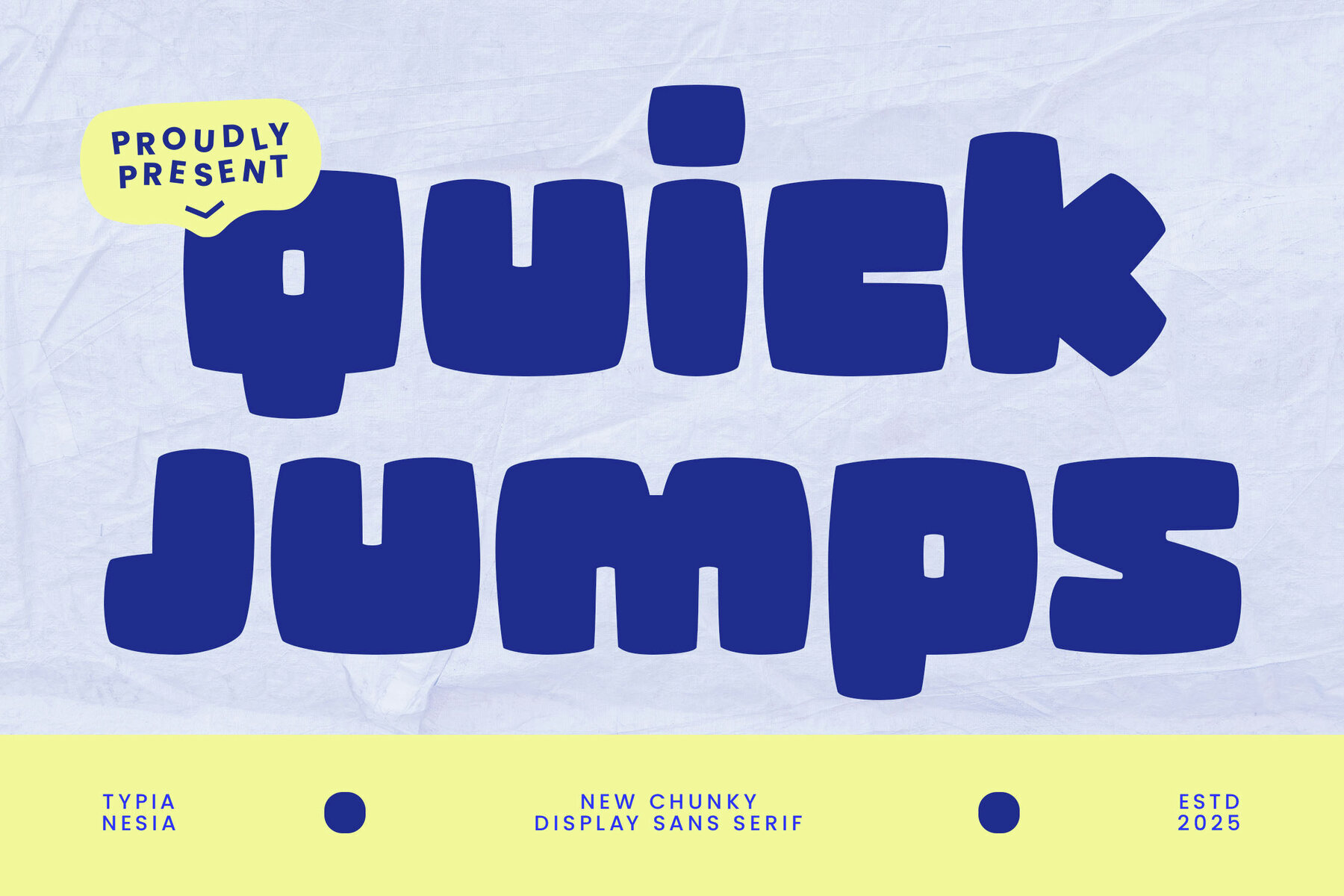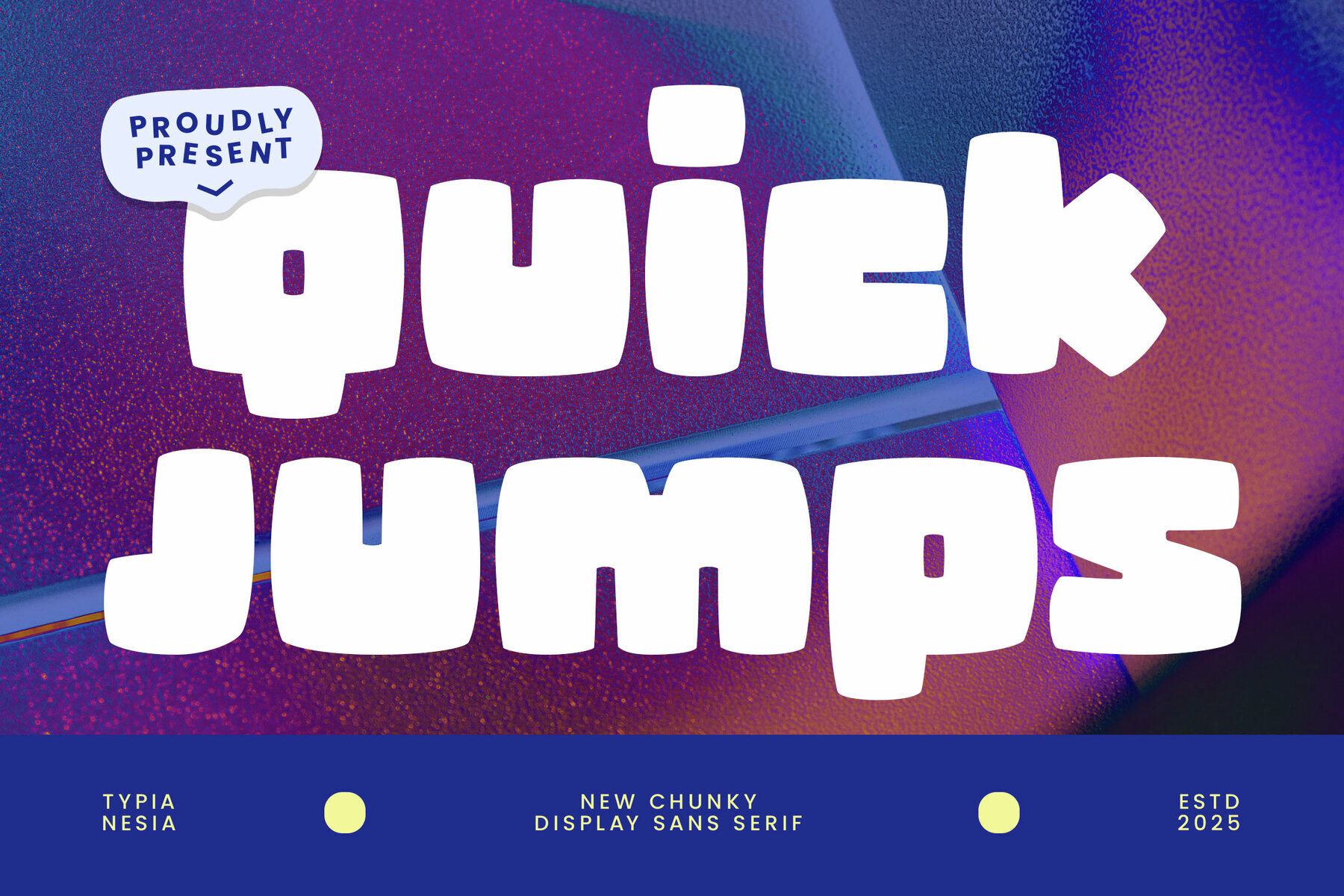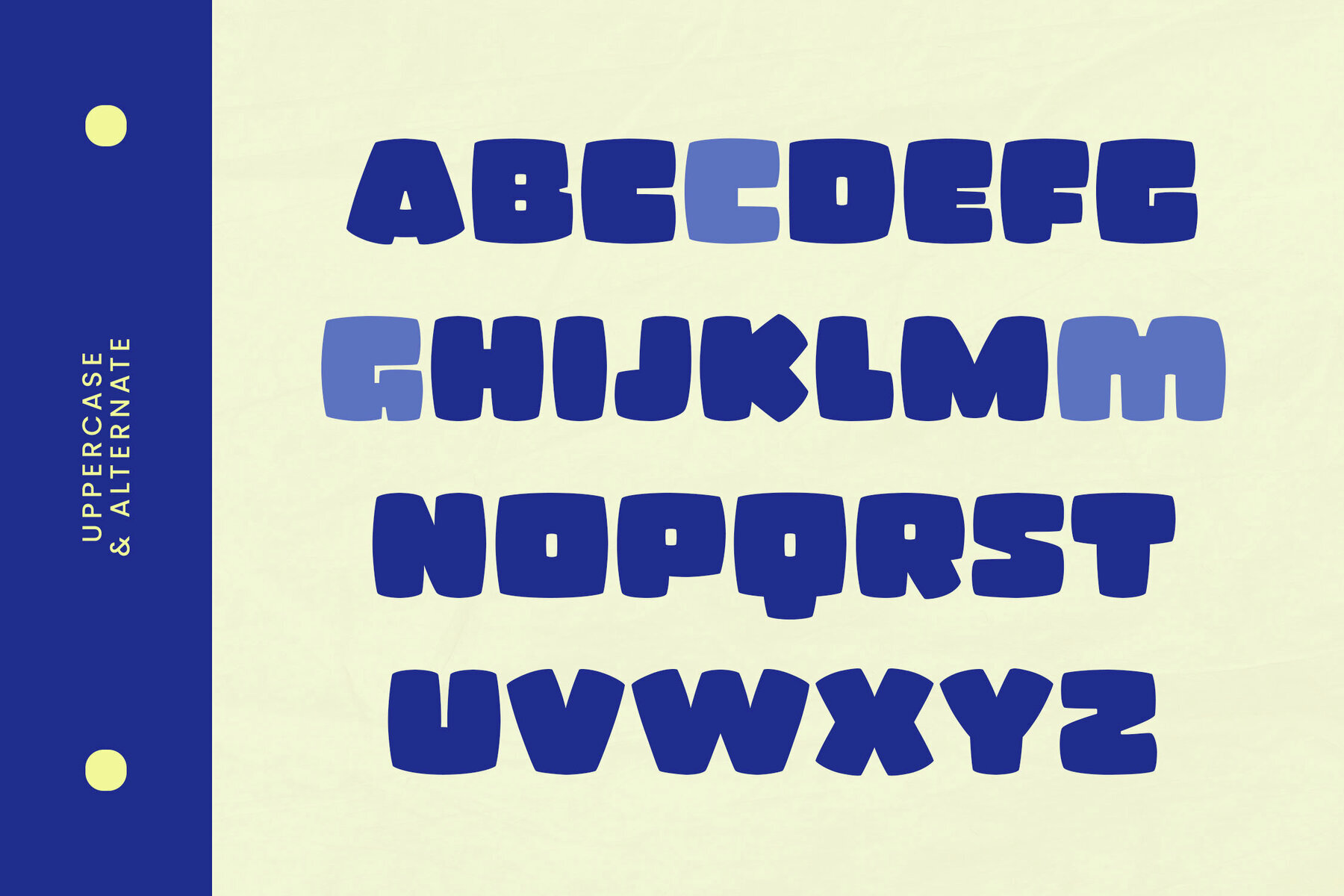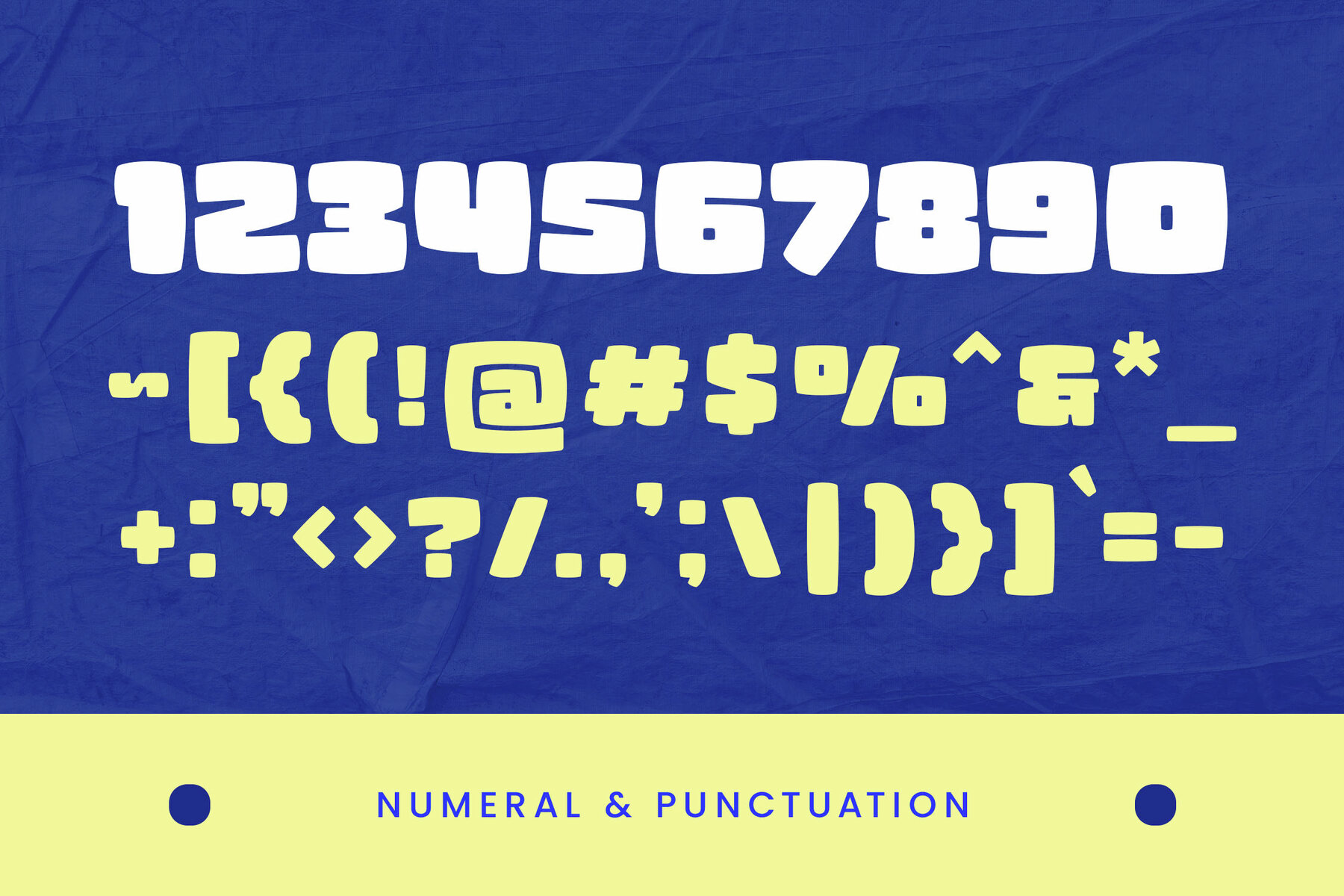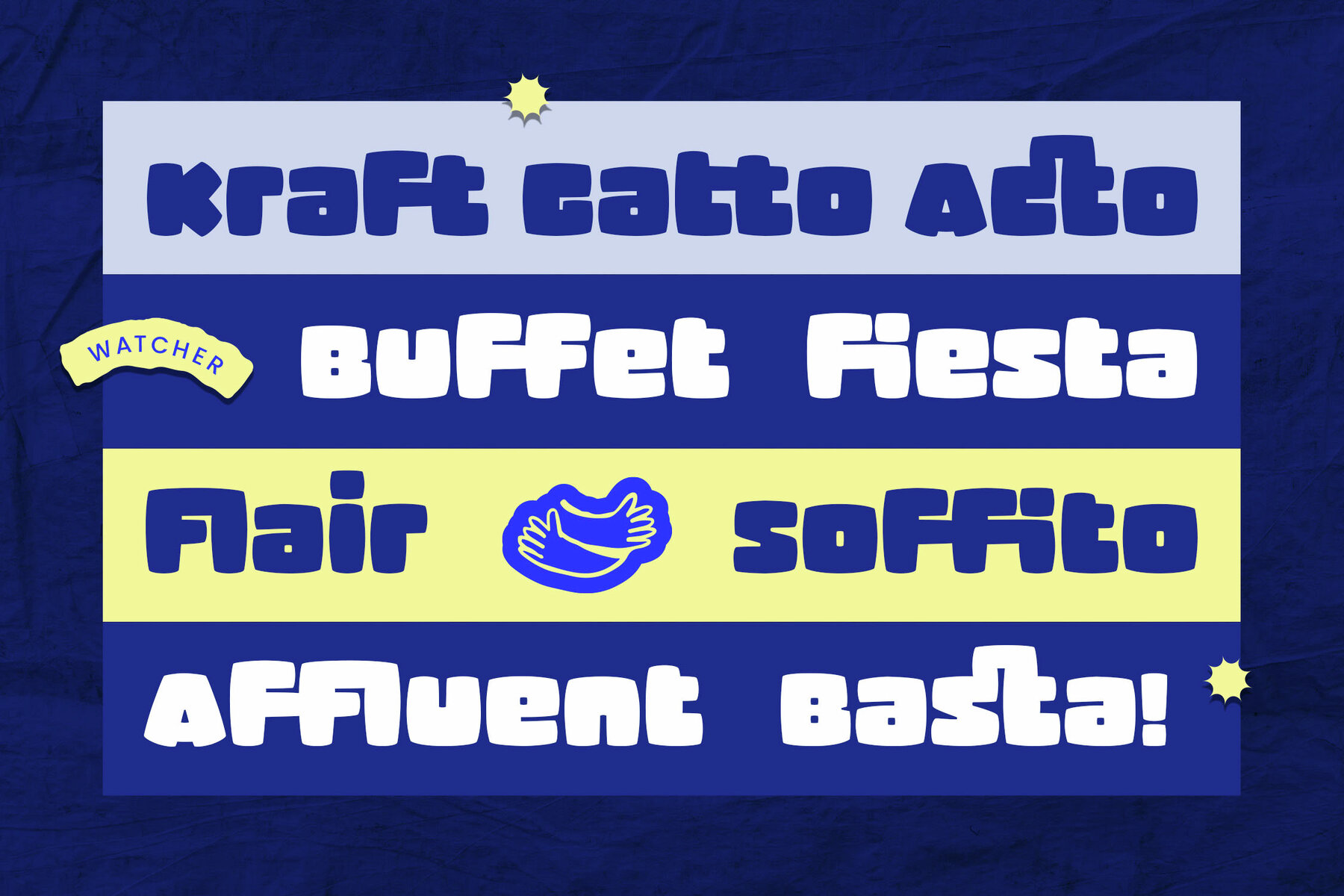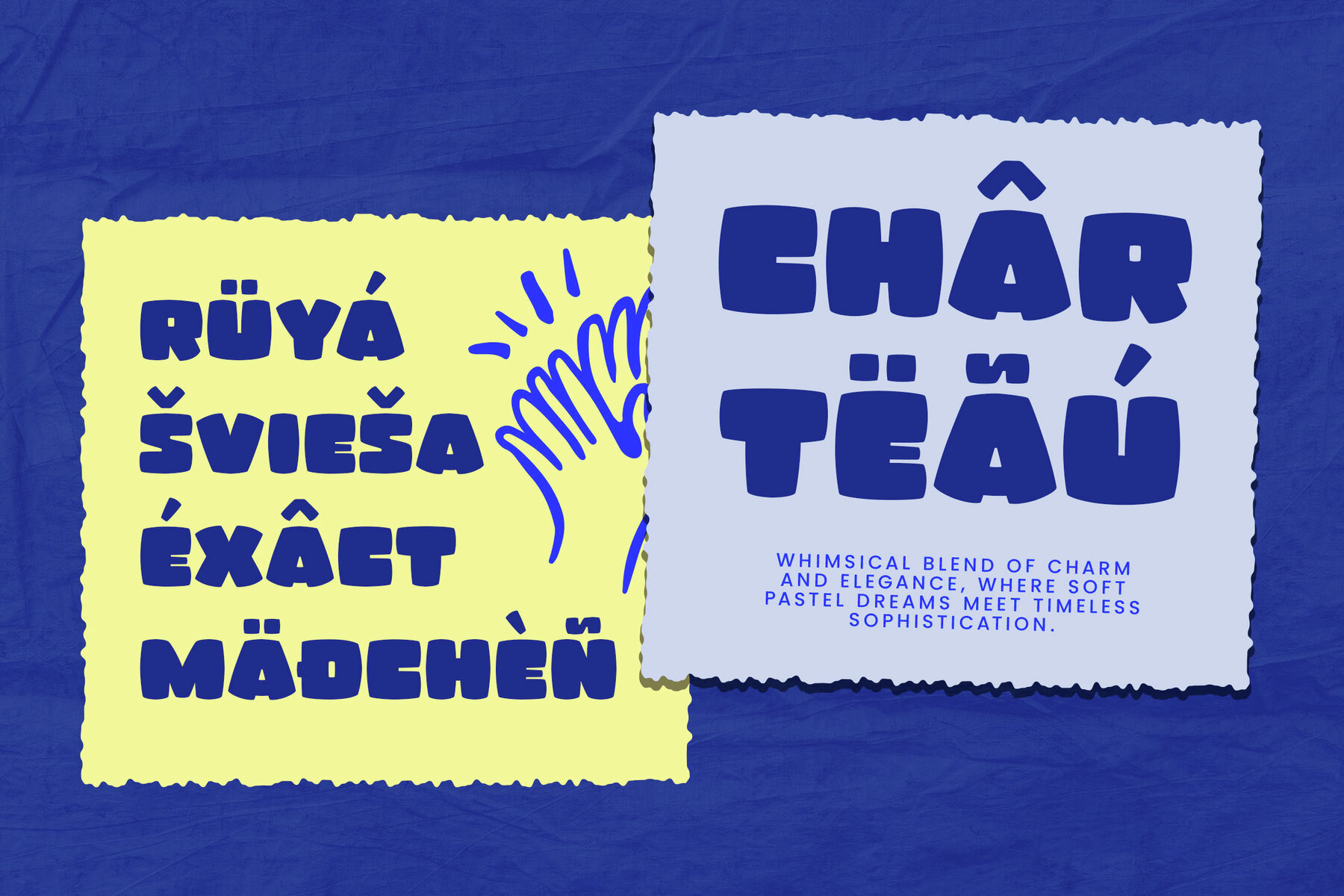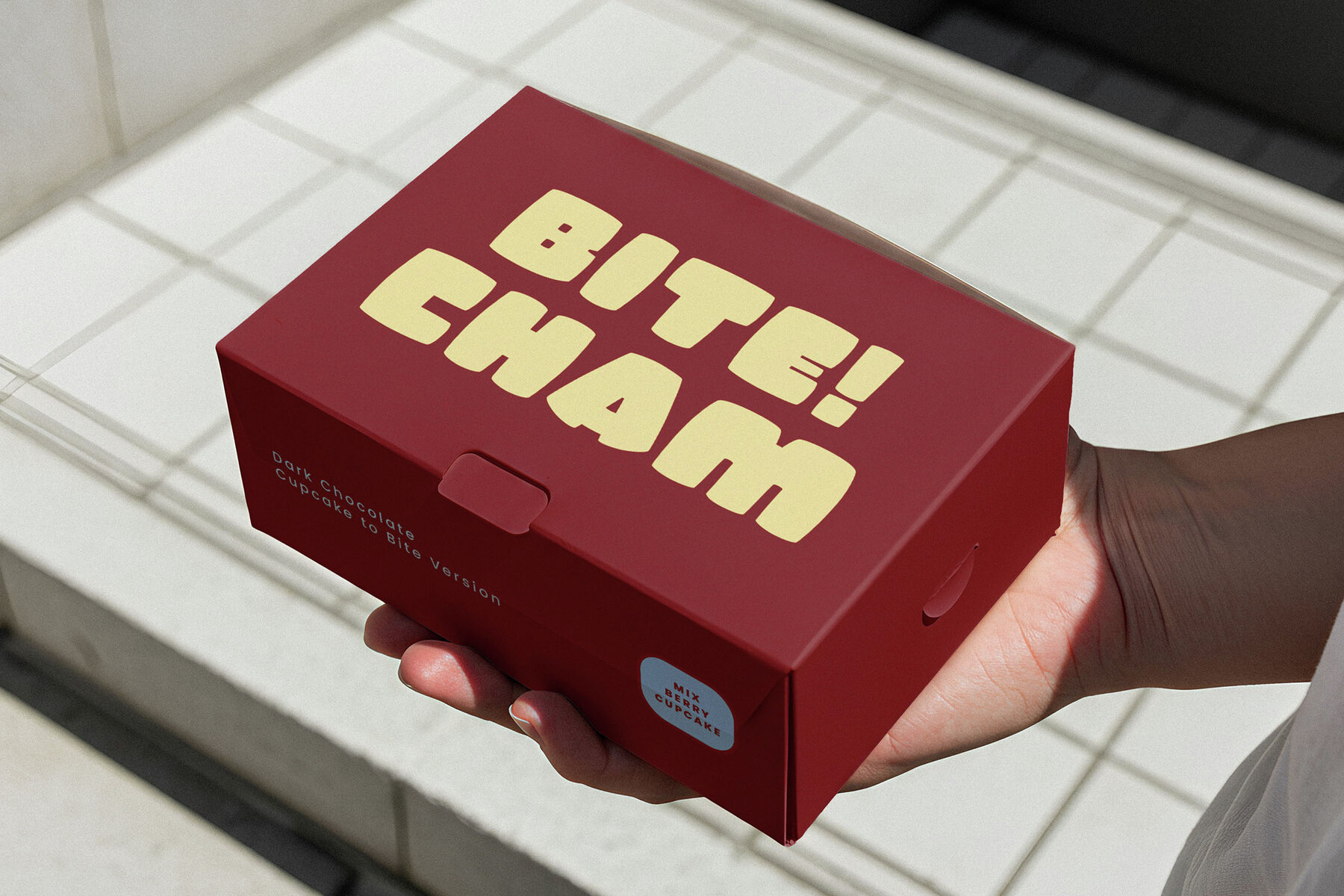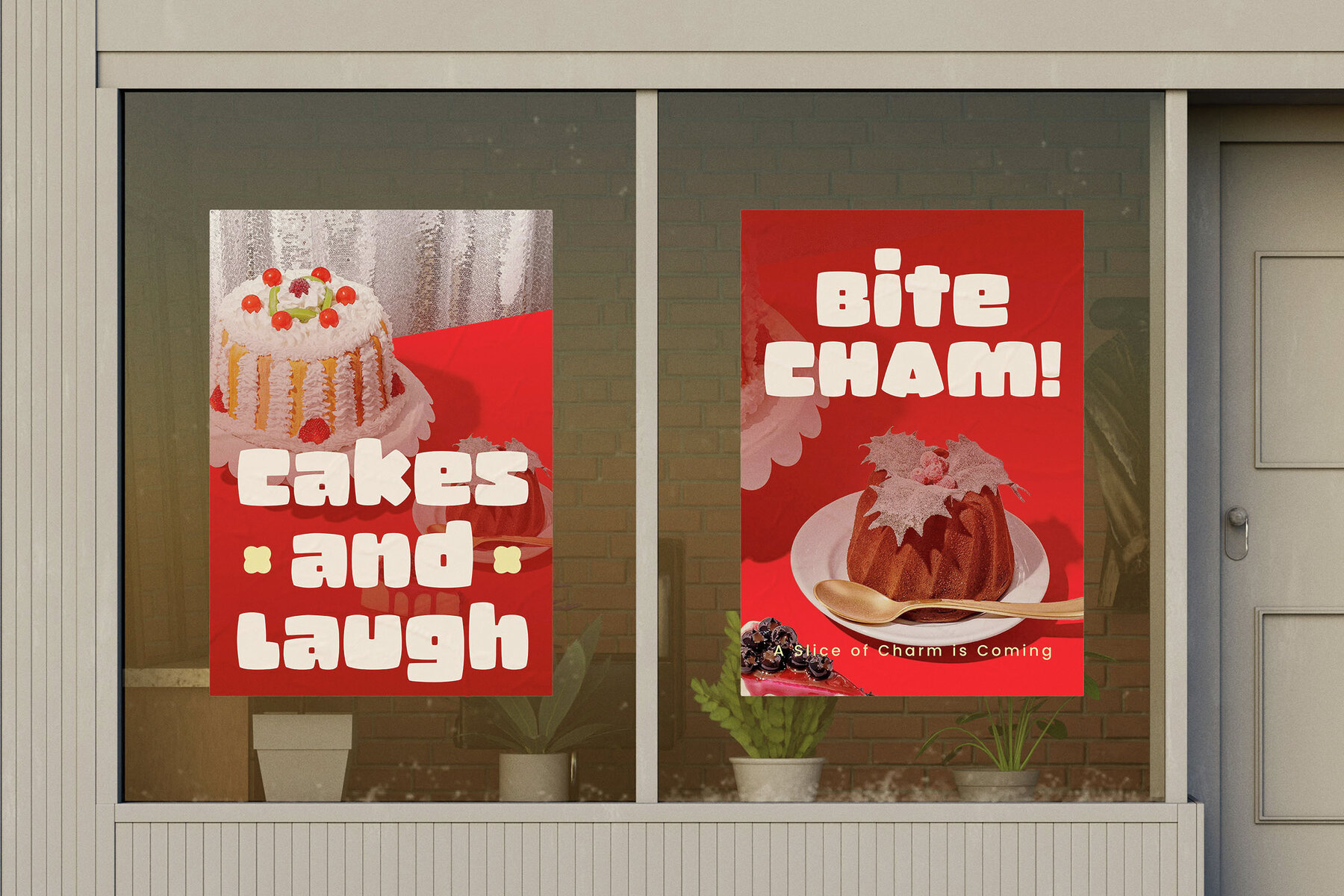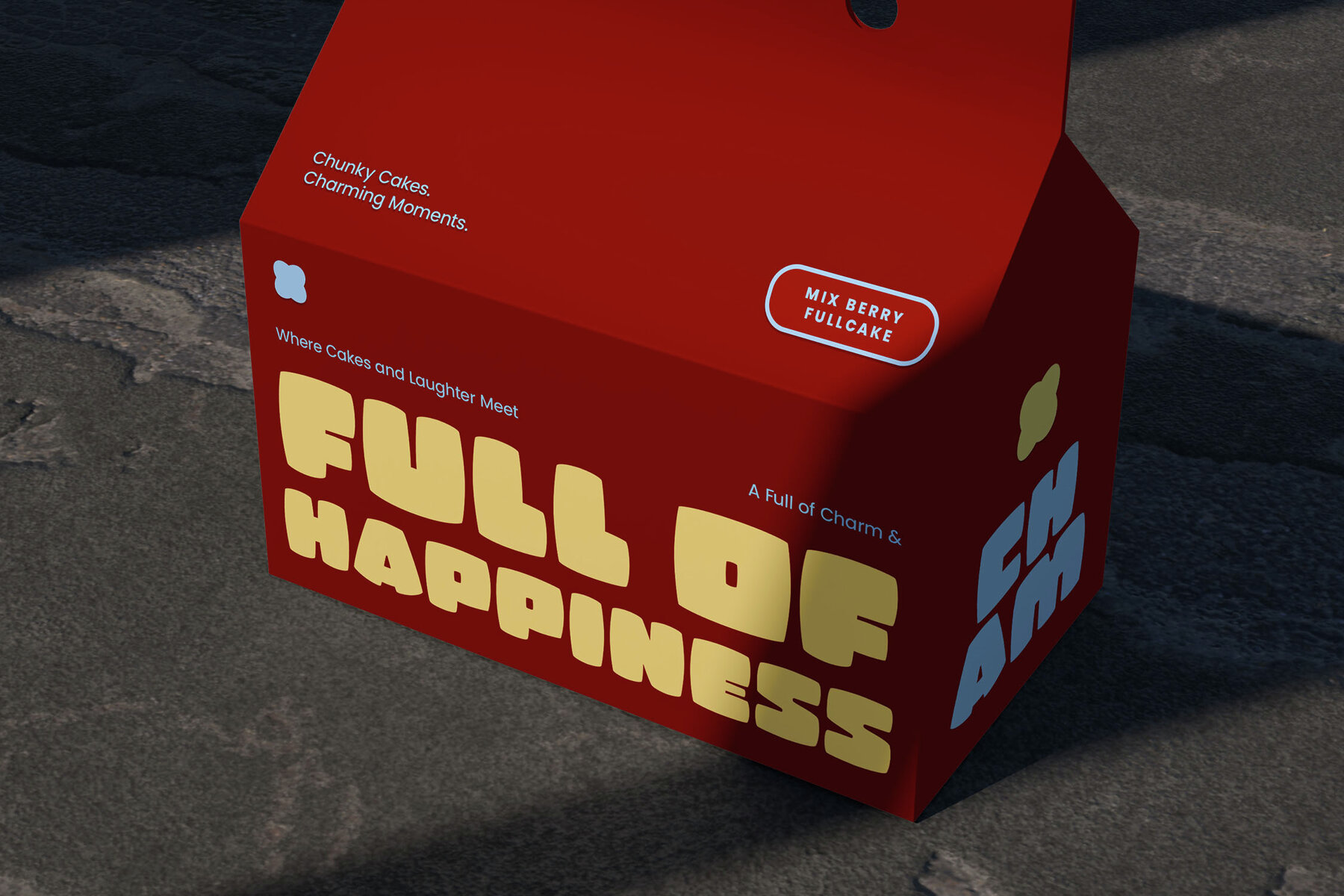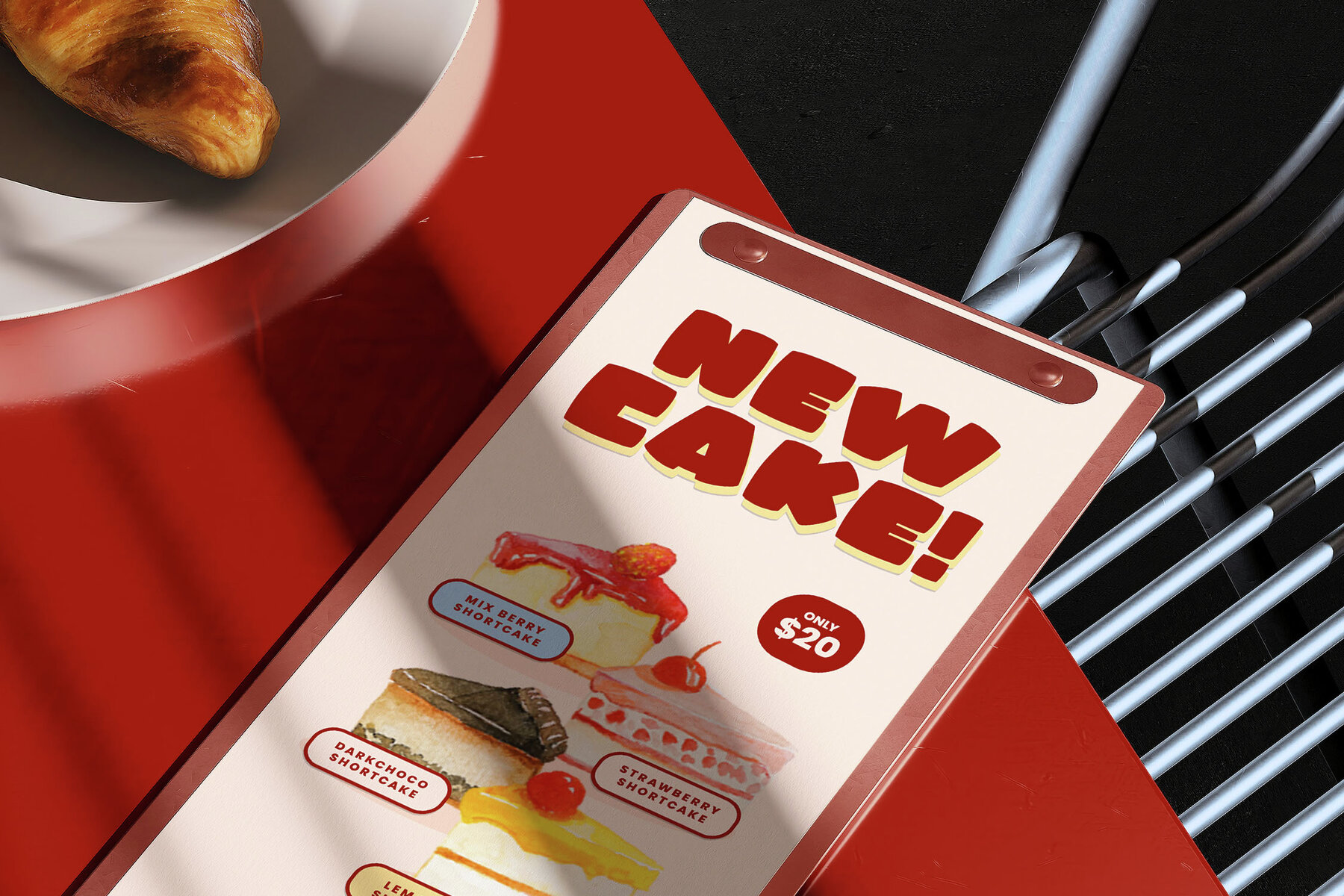
Quick Jumps Font
Quick Jumps Regular
Embrace bold creativity with Quick Jumps, a new chunky display sans serif font infused with playful energy and modernity. Its rounded, heavy forms deliver an immediate impact and create a friendly, engaging impression. Perfect for designs that need a vibrant and energetic touch, Quick Jumps is your go-to choice for children's books, food packaging, cartoons, dynamic branding, and captivating advertising campaigns. Its robust letterforms guarantee excellent readability, making it ideal for both eye-catching headlines and digital and print applications. Add a burst of fun and creativity to your projects with Quick Jumps, and watch your designs leap off the page and screen!Quick Jumps: Chunky Display Sans Serif